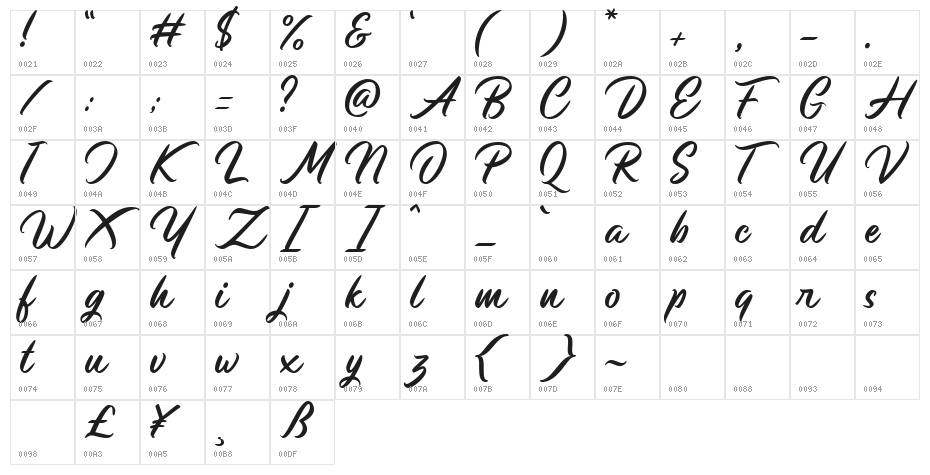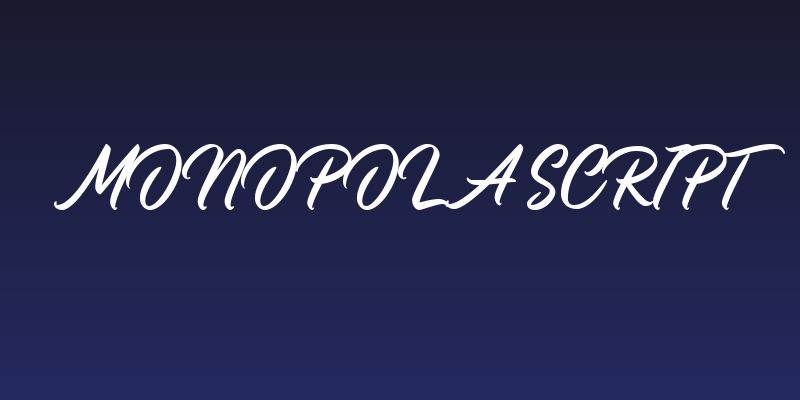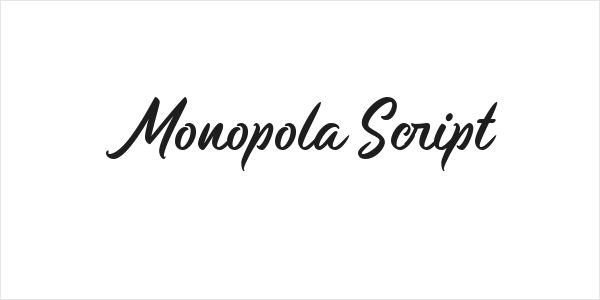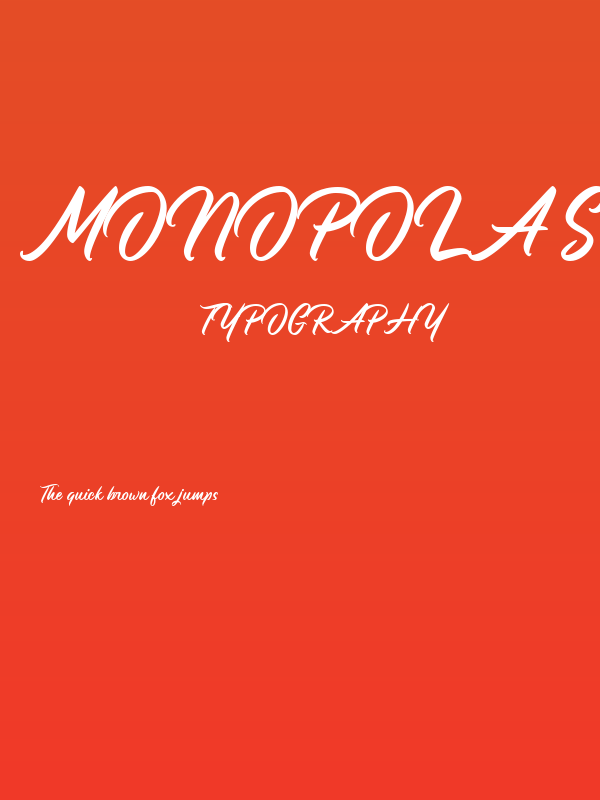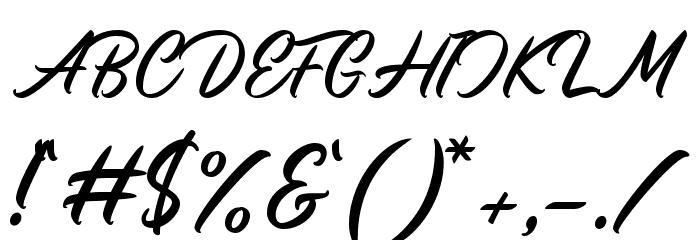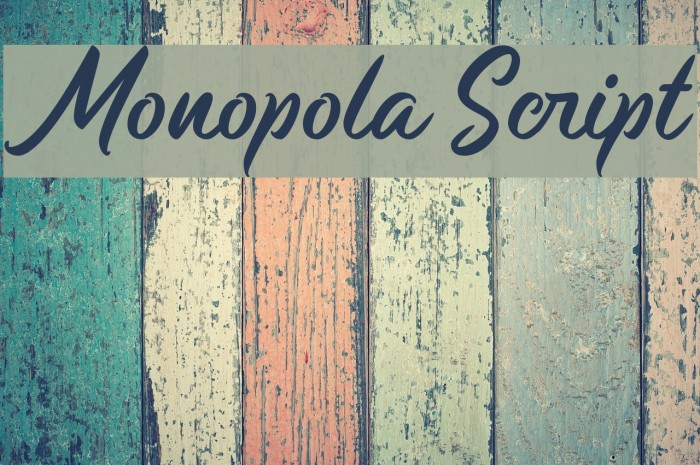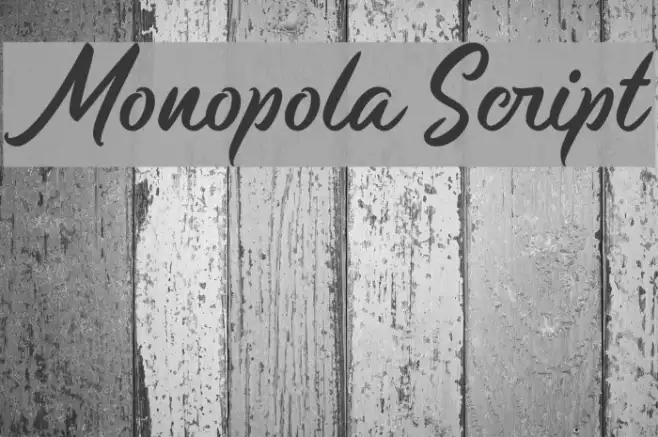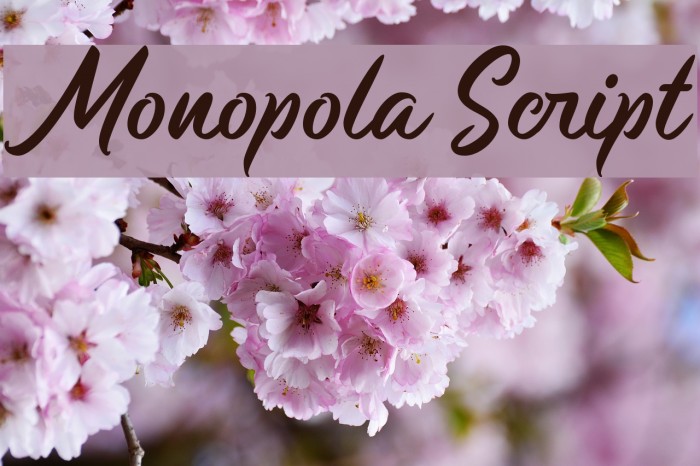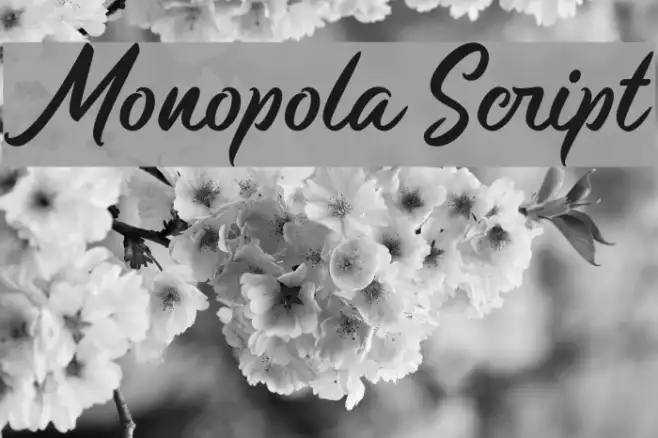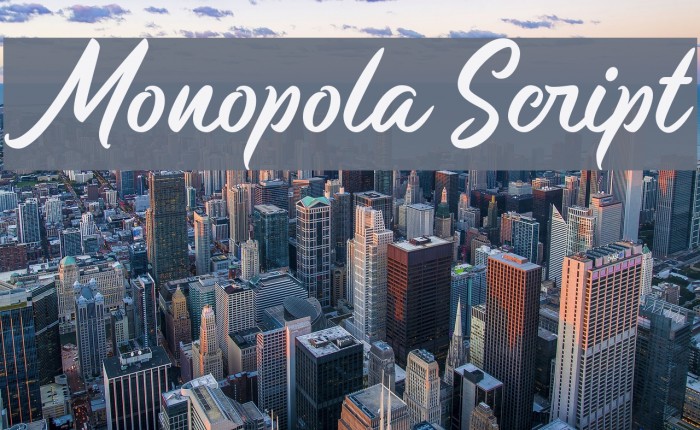
Monopola Script Font
Monopola Script Description
This script font exudes elegance and fluidity, characterized by its smooth, flowing strokes and cursive style. The letters are interconnected, creating a seamless and harmonious appearance. The uppercase letters are slightly more ornate, with sweeping curves and flourishes, while the lowercase letters maintain a consistent rhythm and balance. The font's bold weight adds a sense of strength and presence, making it suitable for impactful designs. The spacing between characters is tight, enhancing the cohesive look of the text. The high contrast in stroke thickness adds to its dynamic and expressive nature, making it ideal for creative and artistic projects.
| Overall Style | Elegant, Artistic |
| Proposed Projects | Ideal for wedding invitations, branding, logos, and artistic projects requiring a touch of elegance. |